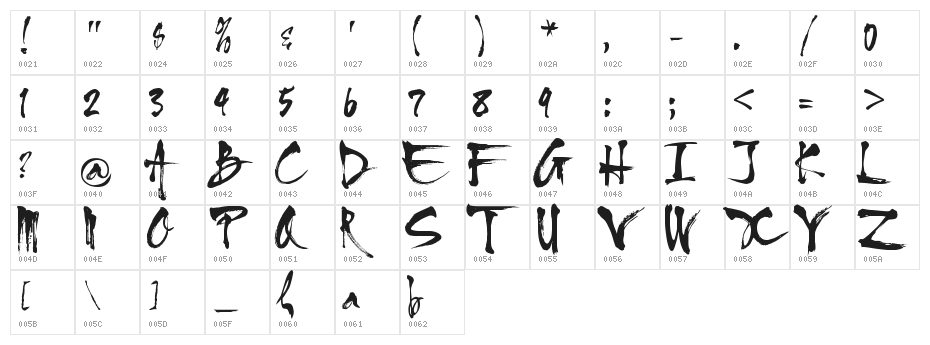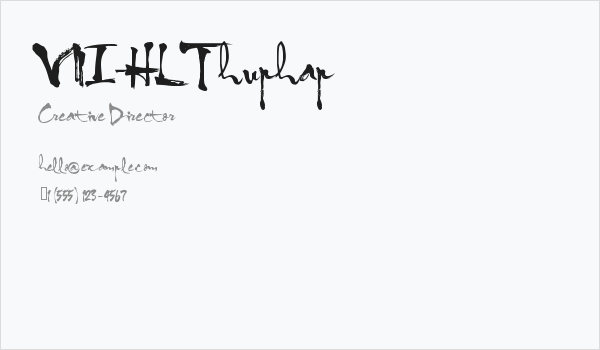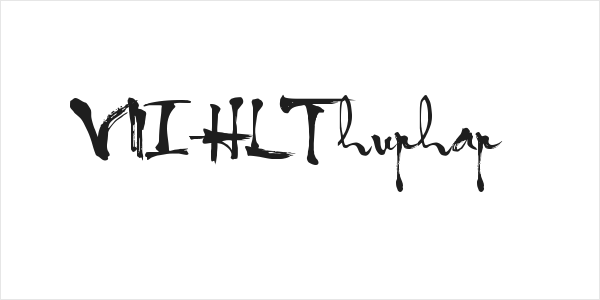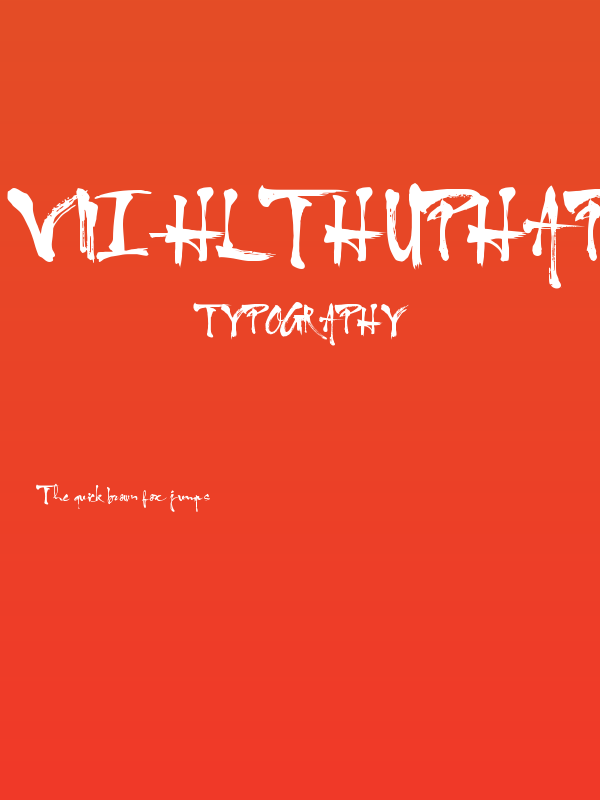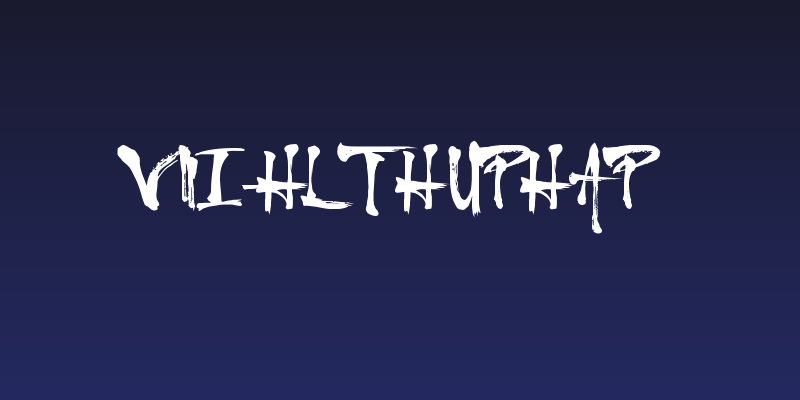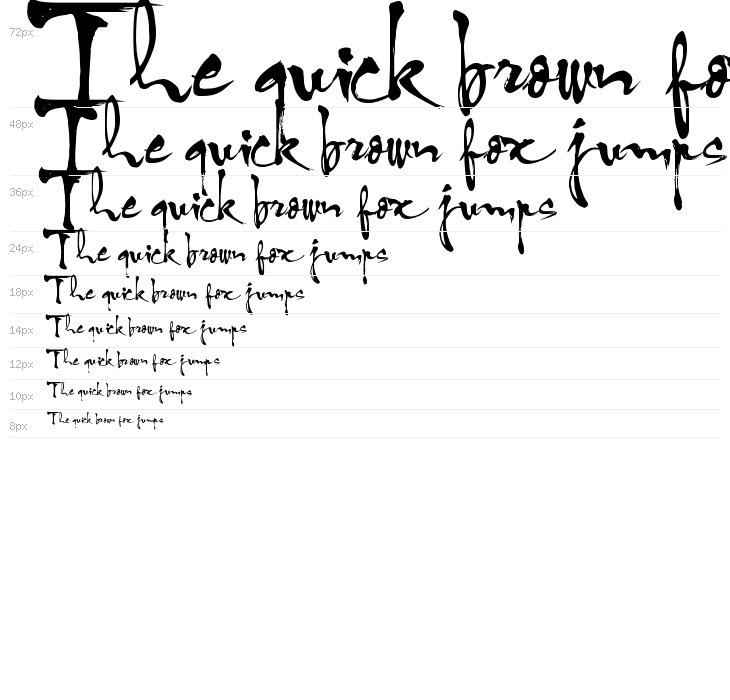
VNI-HLThuphap Font
✎ Handwritten
| 分类 | Handwritten |
| 使用场景 | Logos, Headlines, Invitations |
| 推荐项目 | Ideal for artistic projects, invitations, branding, and any design requiring a sophisticated, handwritten touch. |